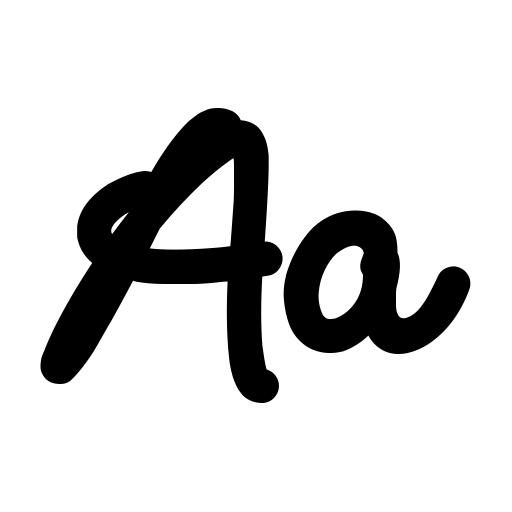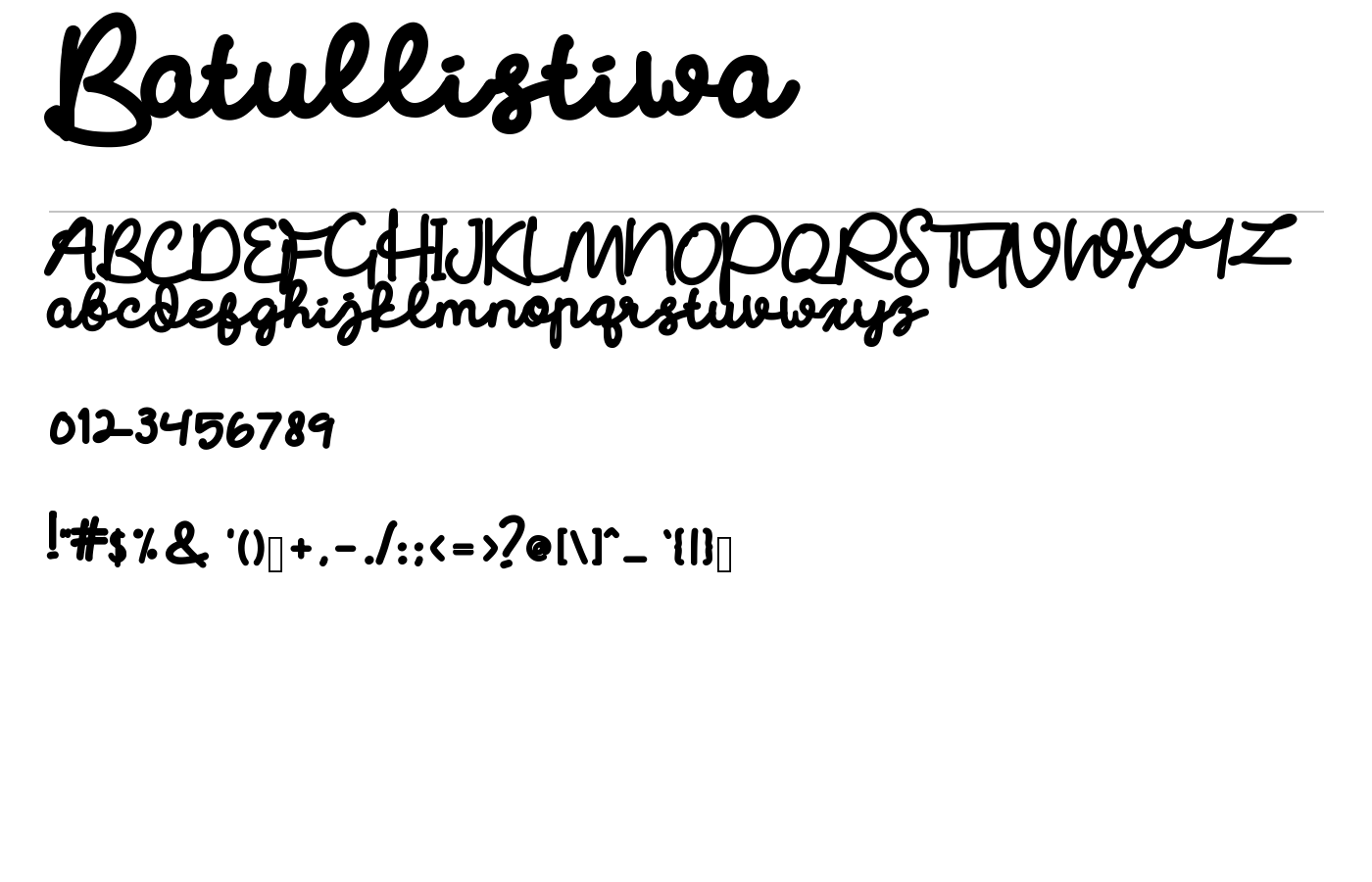
Batullistiwa is a playful and casual handwritten script font, characterized by its bold, rounded strokes and friendly, lively personality. Its consistent weight and smooth curves give it an approachable feel, making it ideal for informal designs, children’s materials, or creative branding that seeks warmth and charm. This font works well for headlines, logos, and packaging that need a personal, hand-crafted touch.
Batullistiwa Font